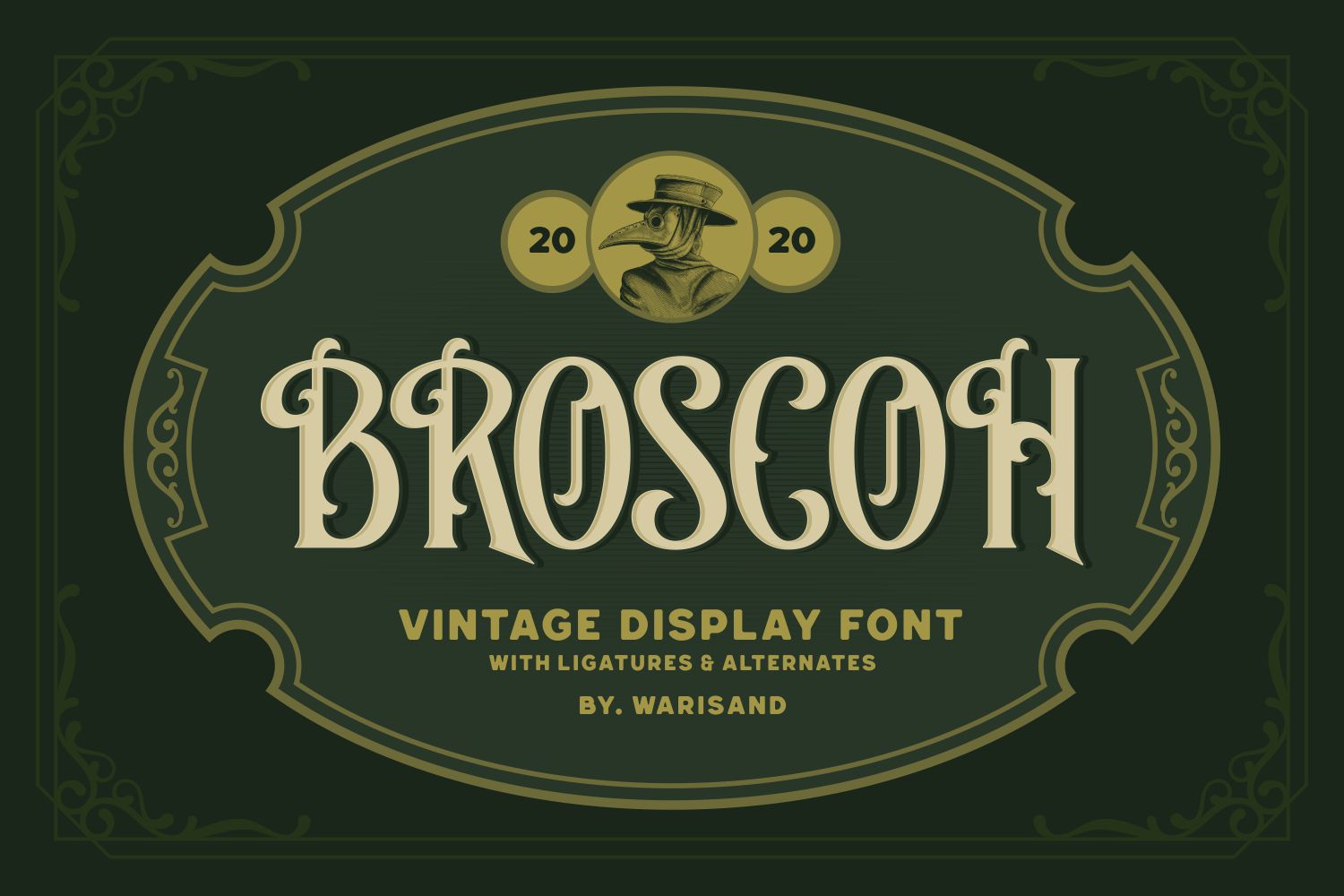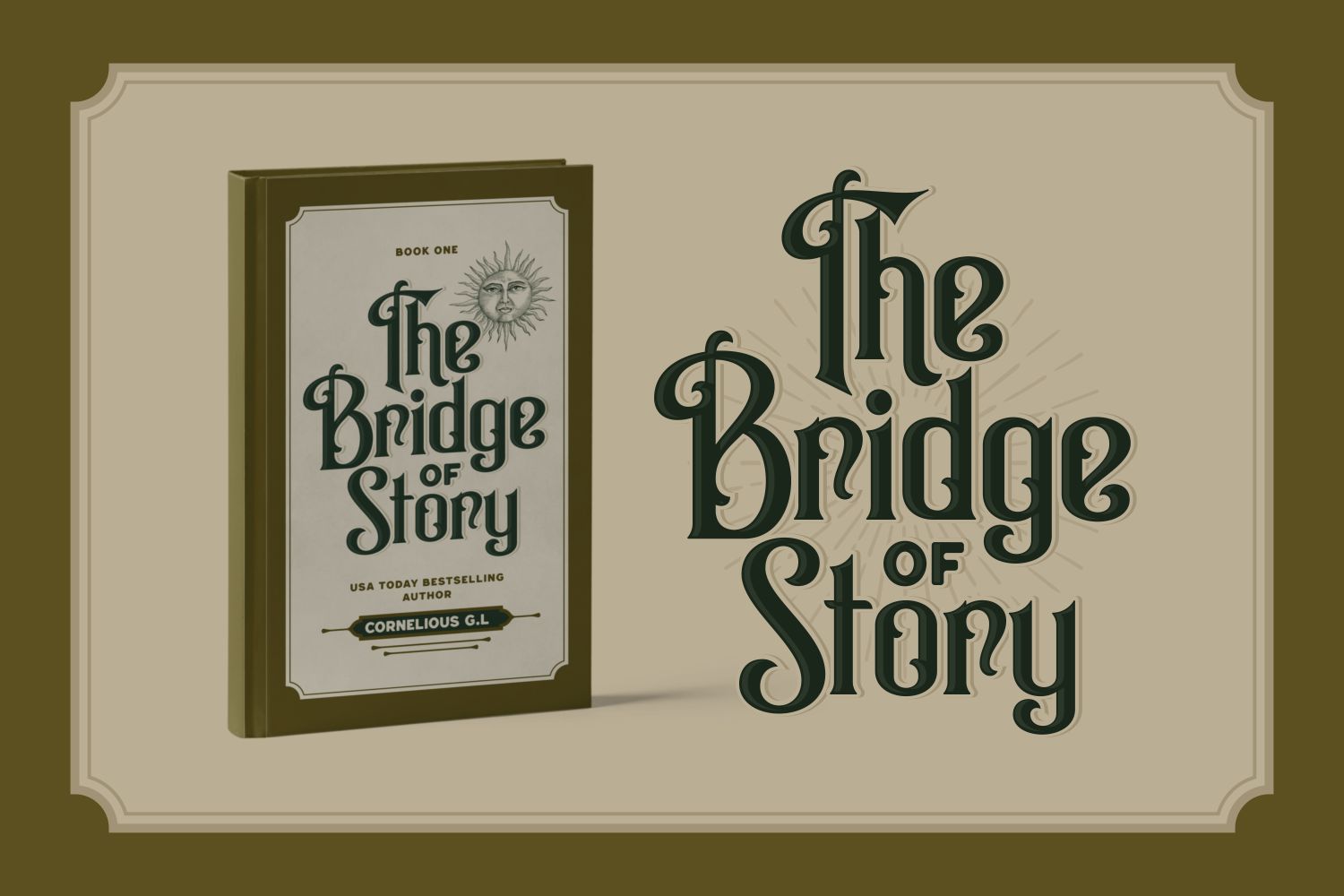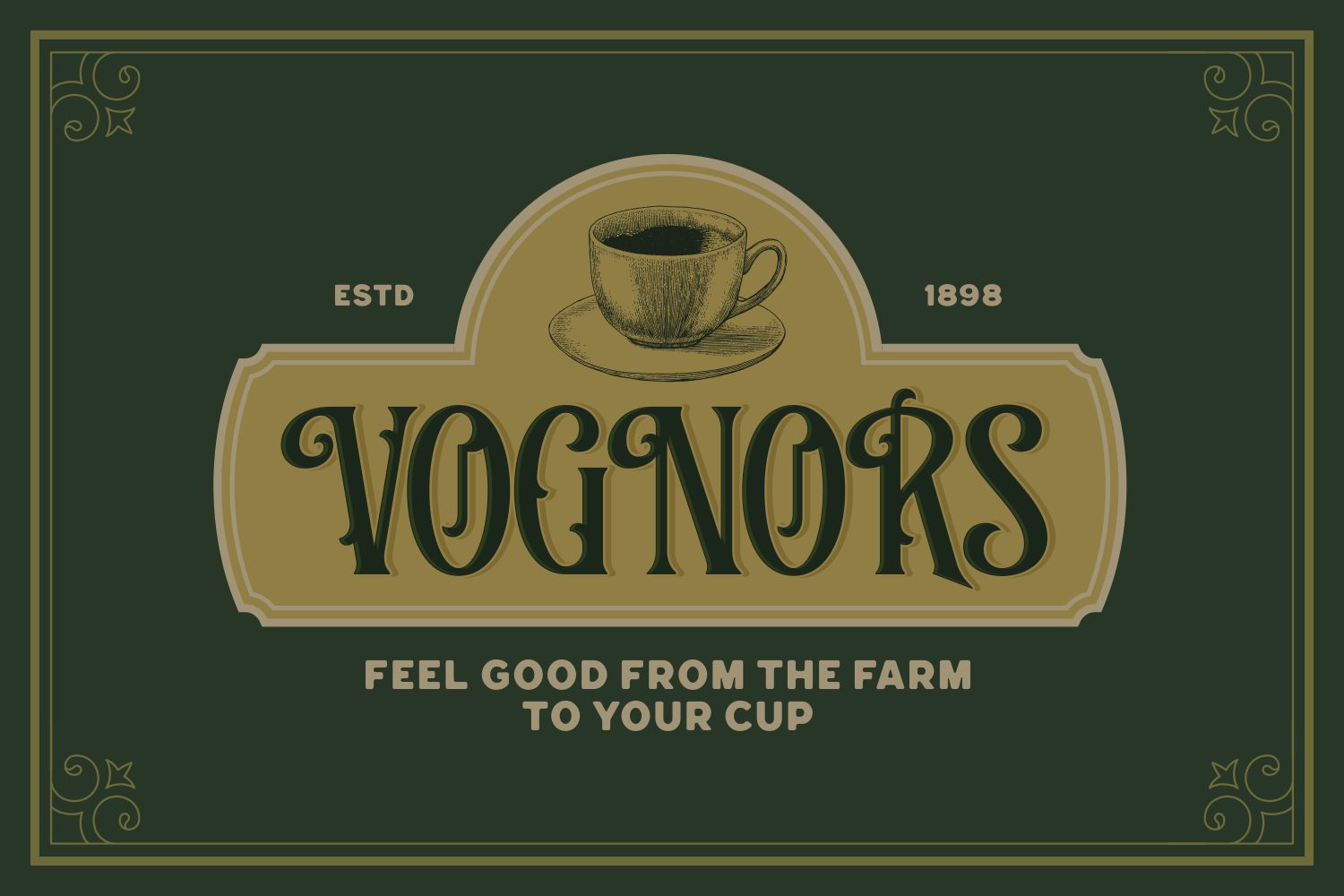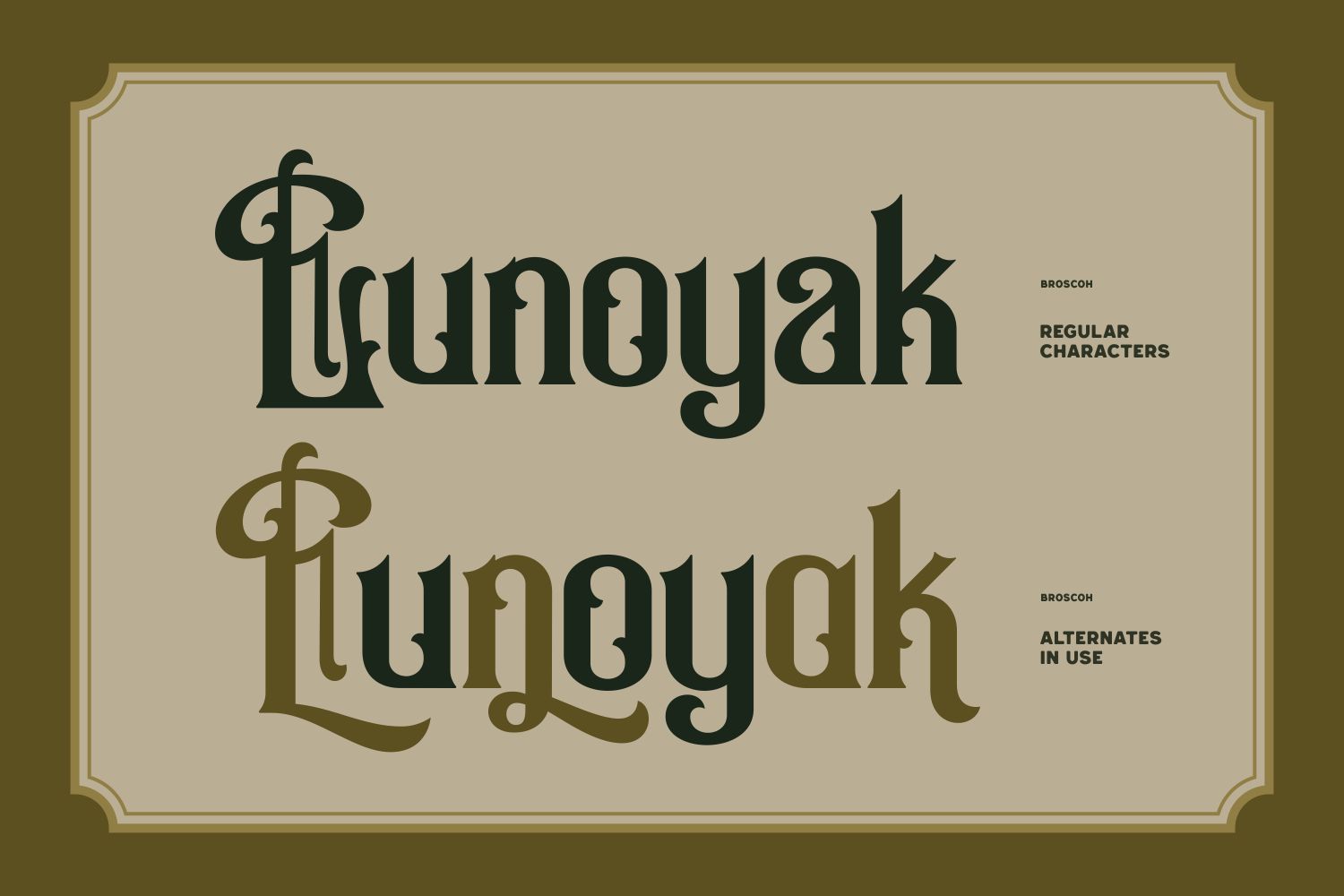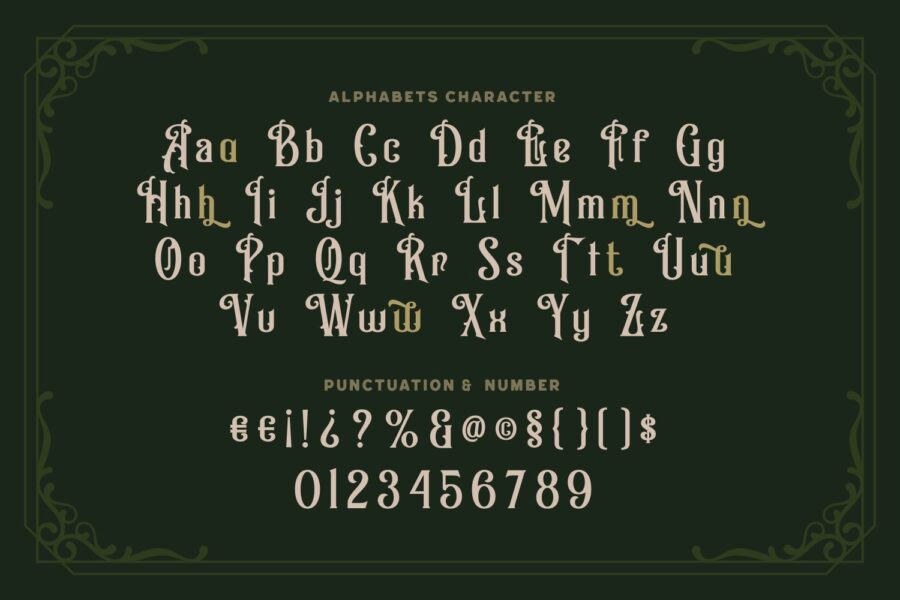
Broscoh
Glyphs for Broscoh
Broscoh is a bold vintage display font that merges ornamental elegance with gothic charm. Inspired by retro signage, classic whiskey labels, and old-world typography, Broscoh offers a unique blend of dramatic strokes, sharp serifs, and intricate alternates. Each letter is crafted to convey a strong sense of nostalgia and premium craftsmanship, making it perfect for high-impact design needs like book covers, logos, and packaging.
This font comes equipped with uppercase and lowercase characters, numbers, punctuation, stylistic alternates, and ligatures. With its decorative nature and historical character, Broscoh is ideal for branding, editorial design, coffee packaging, and display headlines. Whether you’re designing for print or digital, Broscoh gives your project an authentic vintage personality with modern usability.